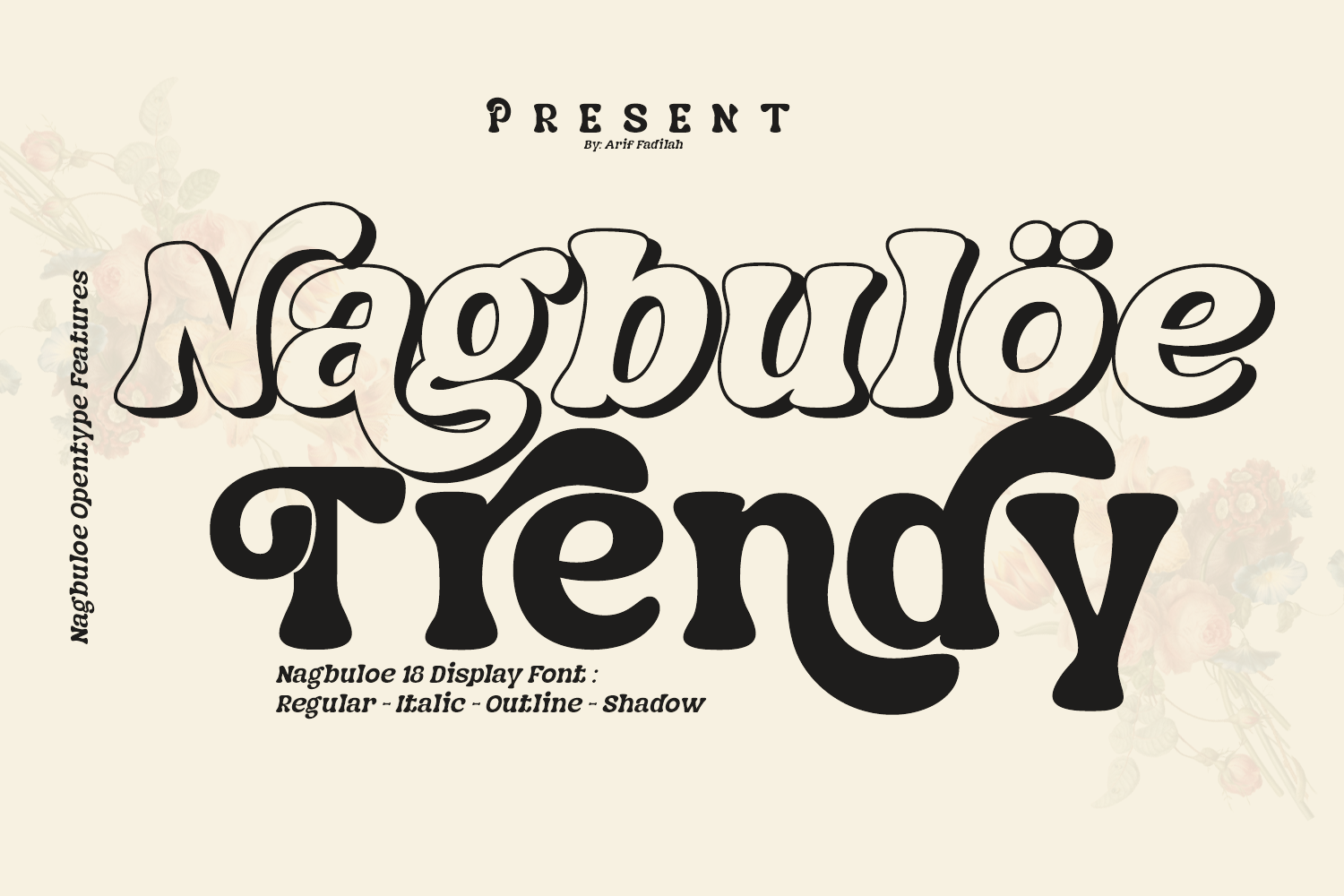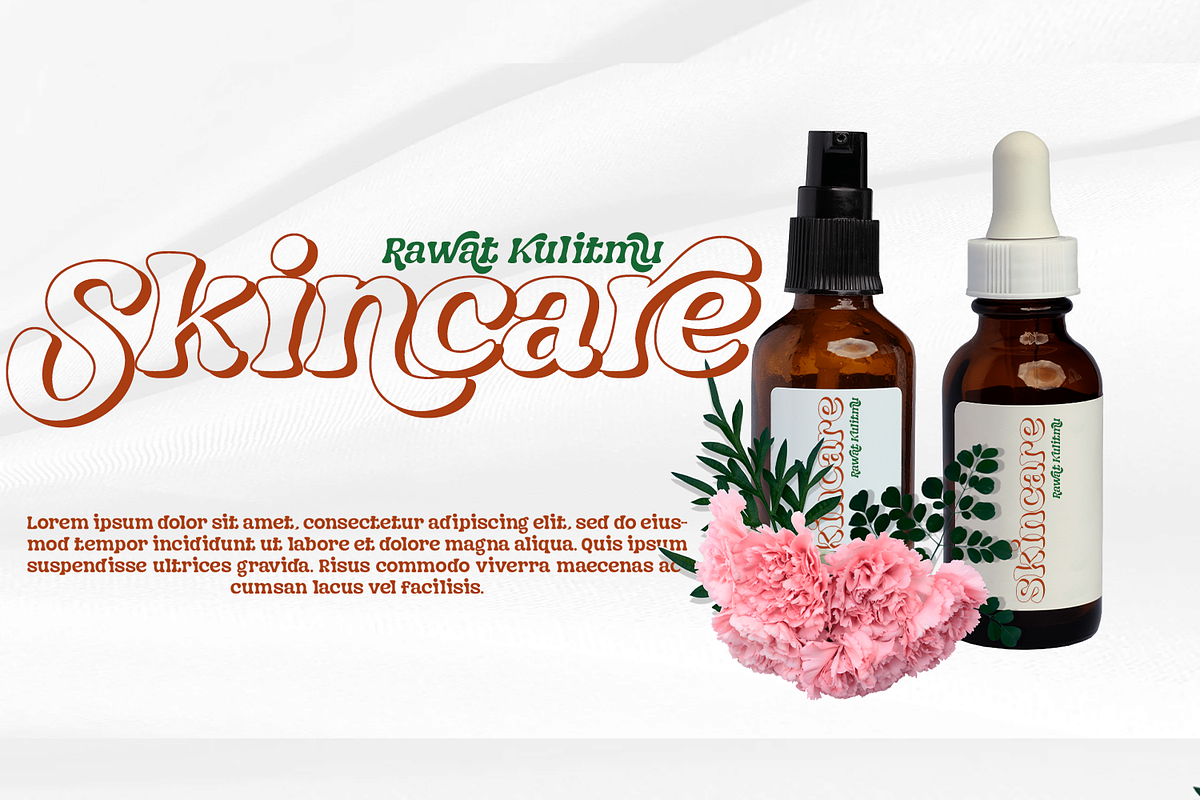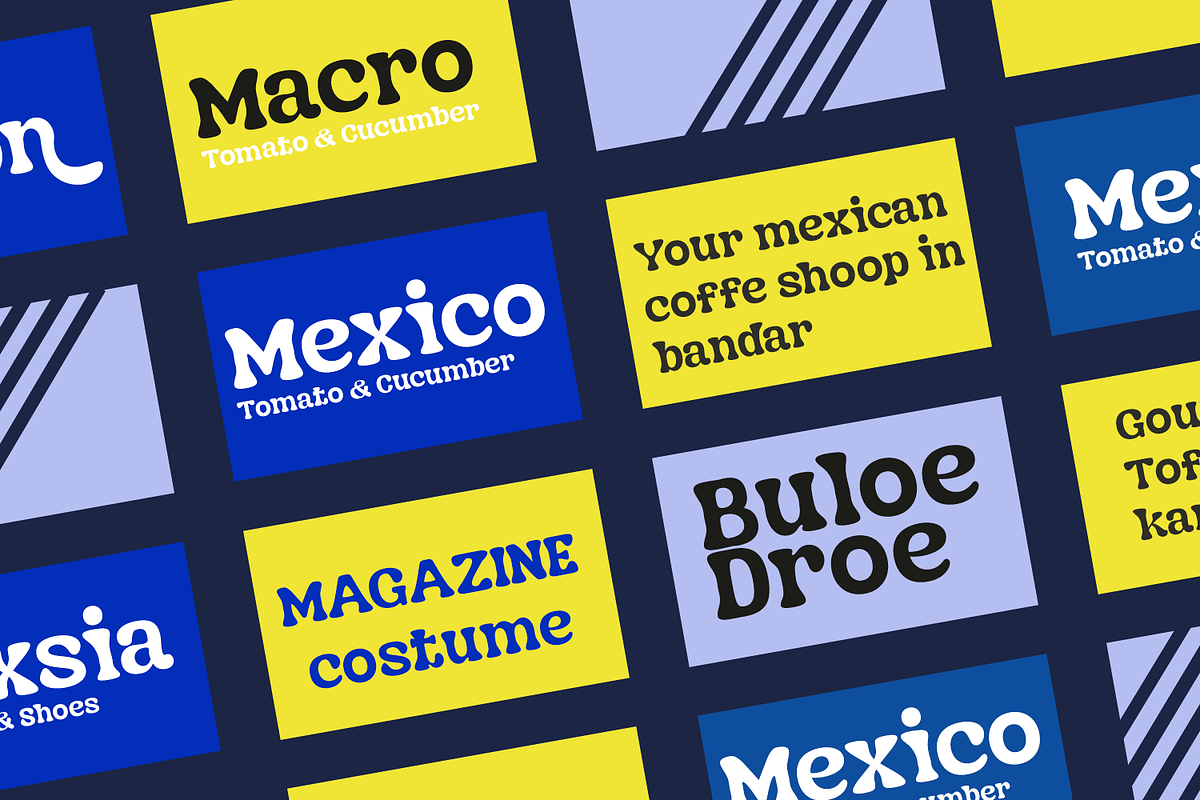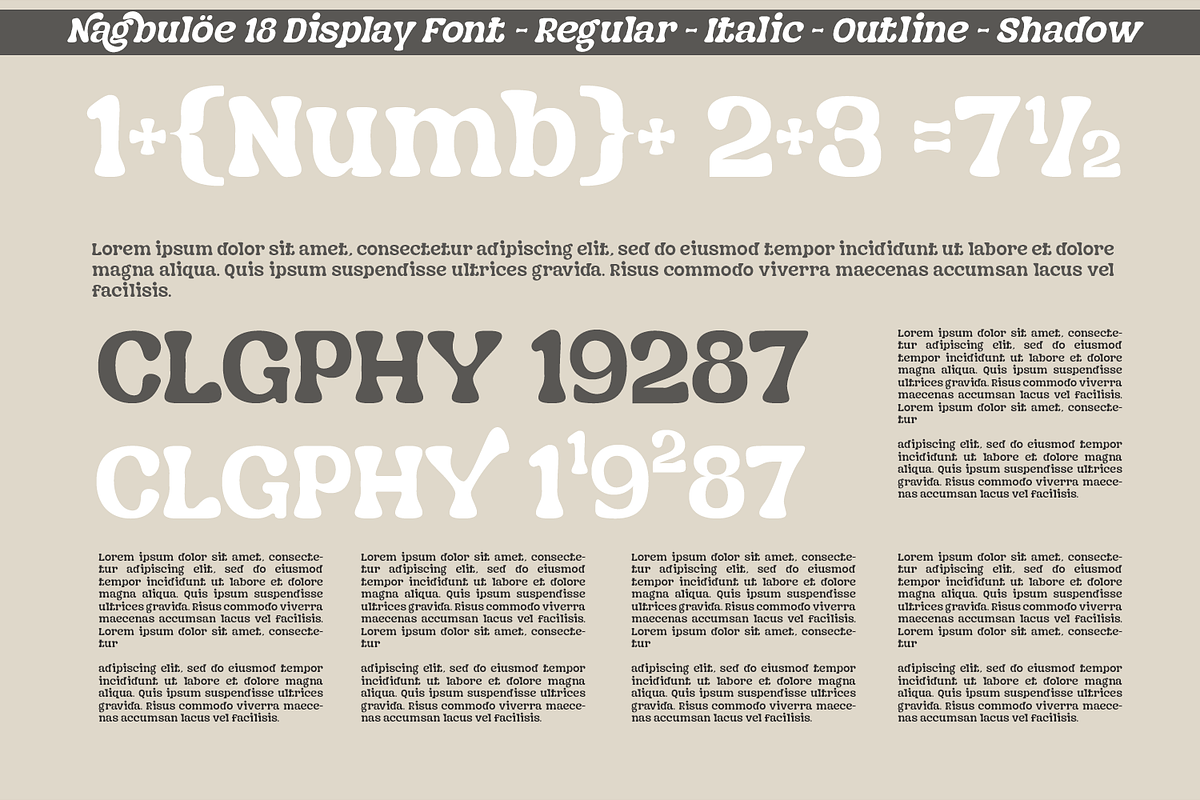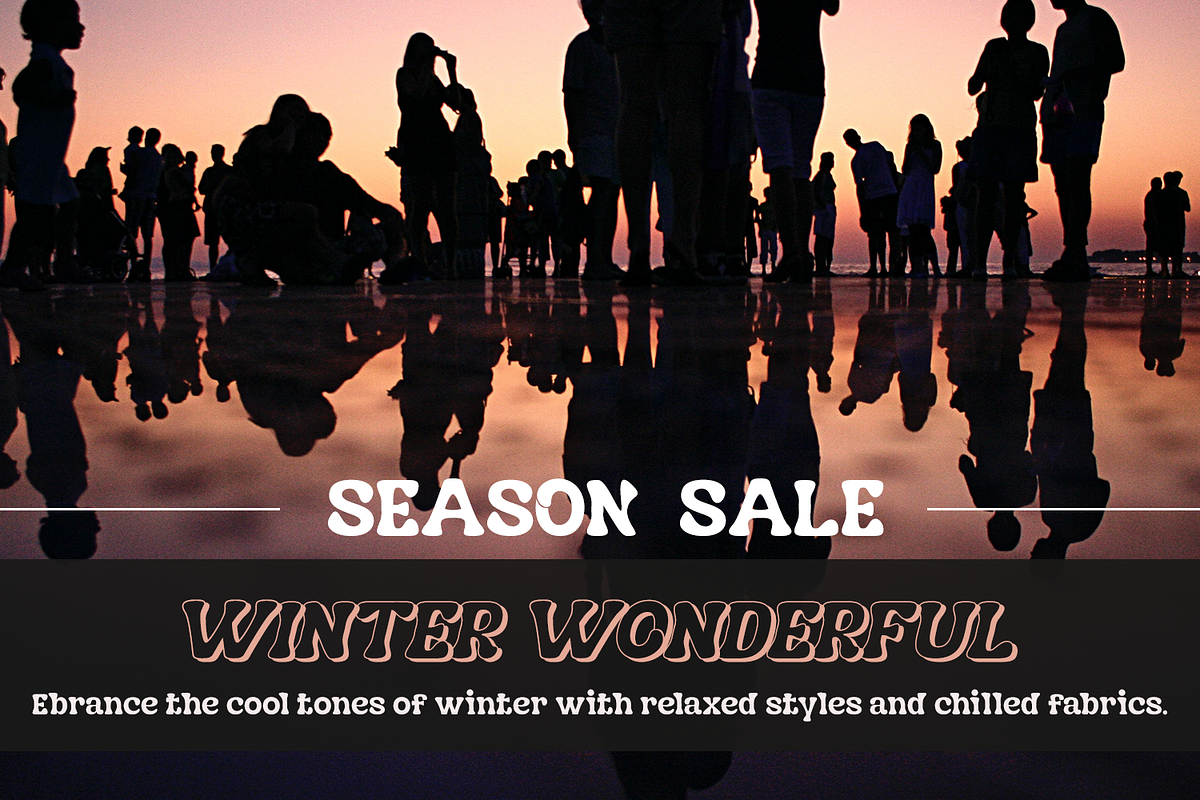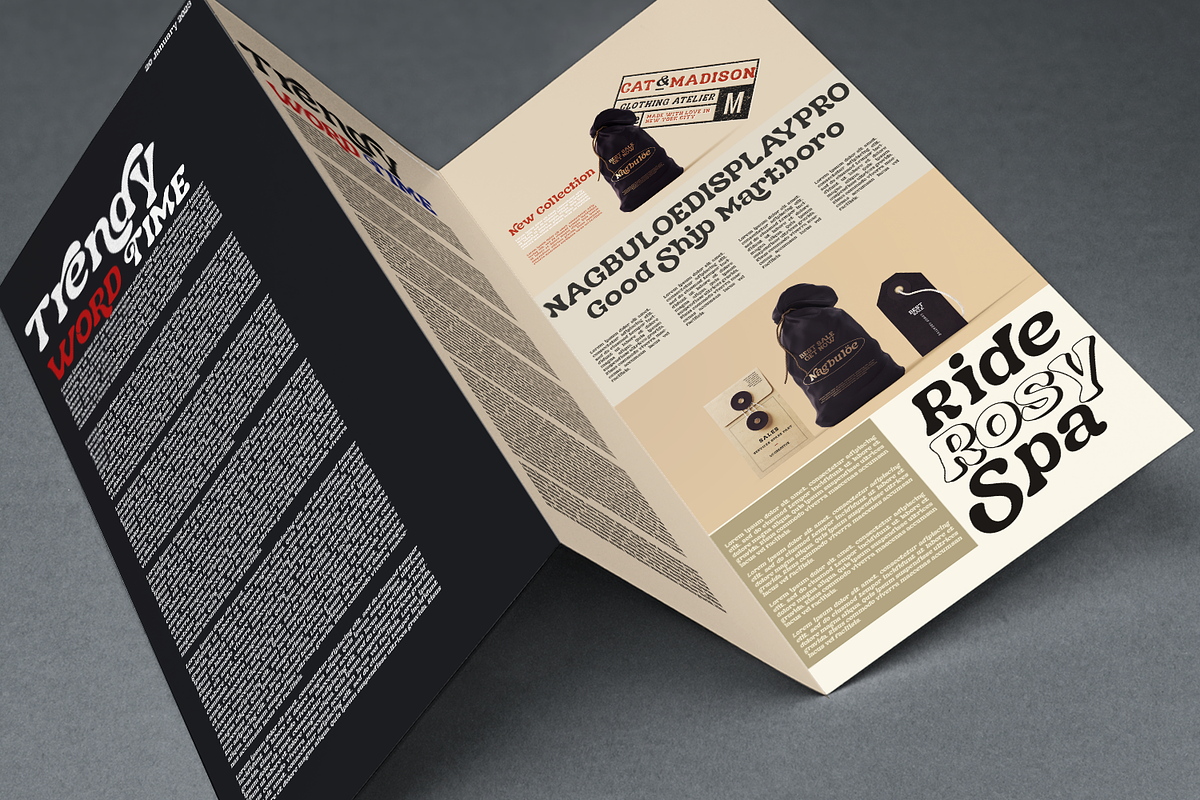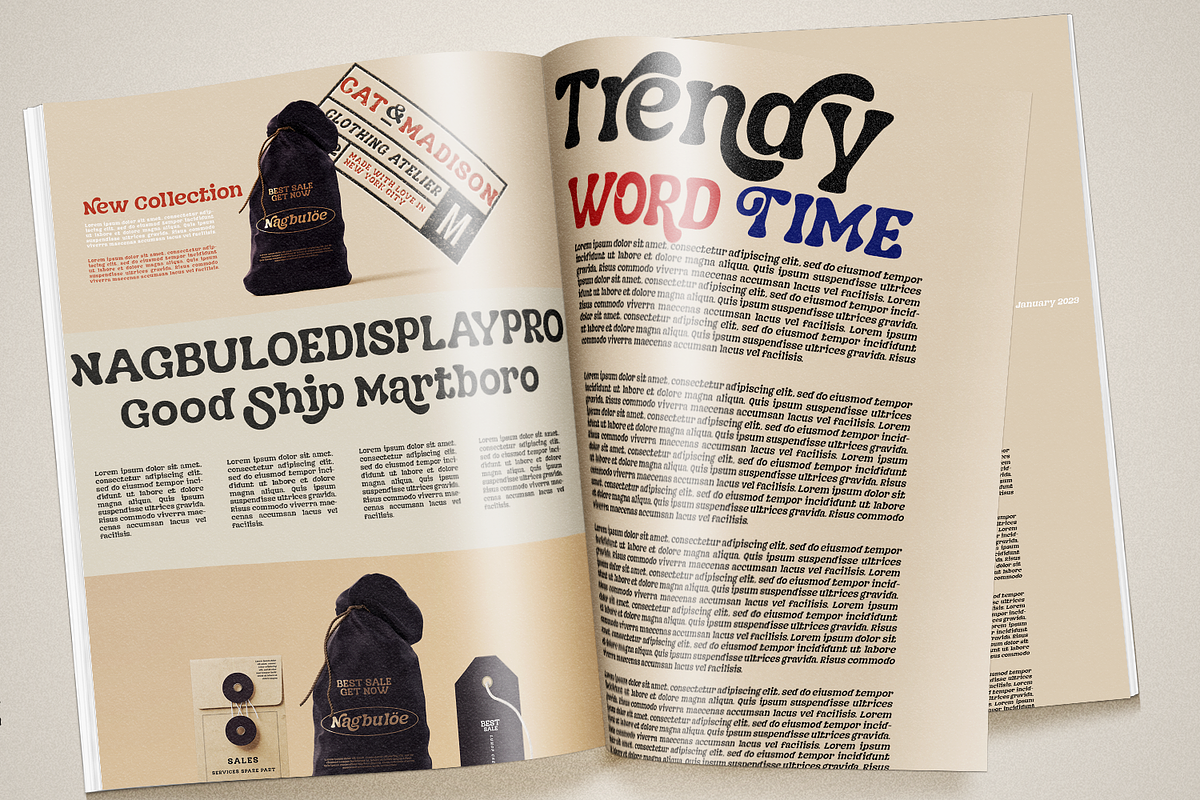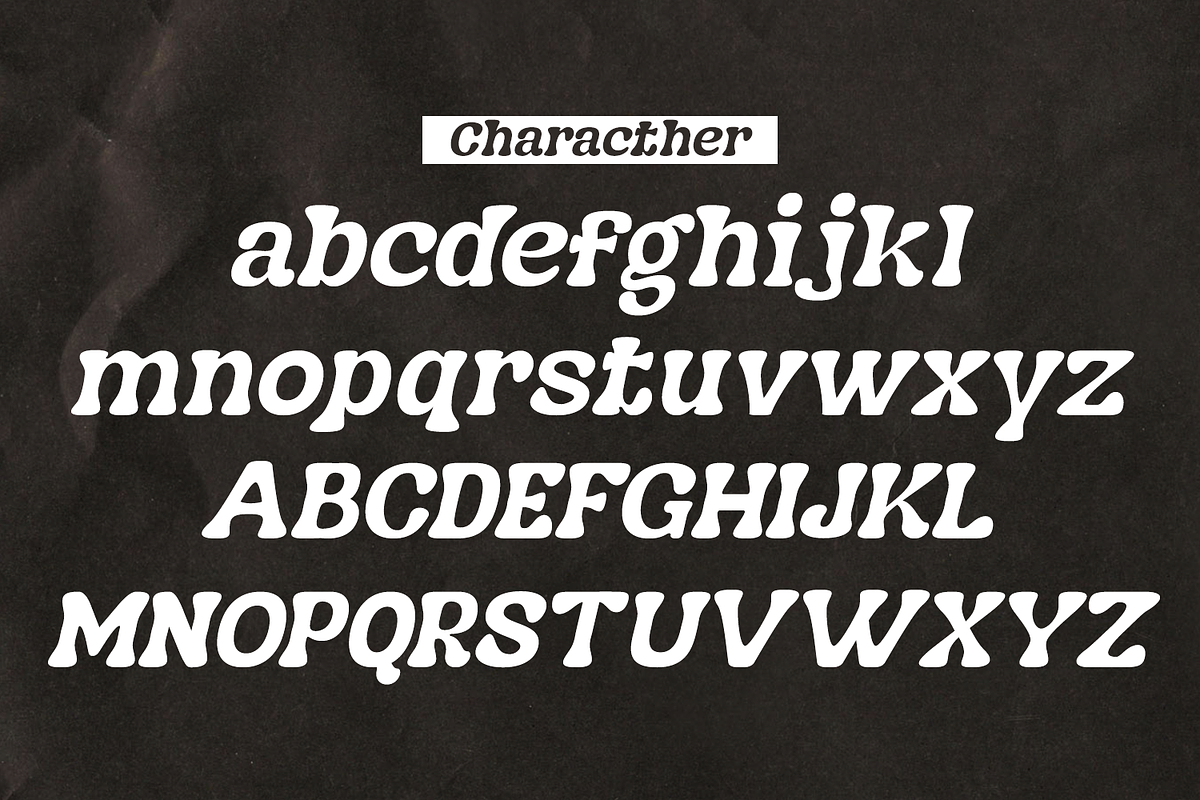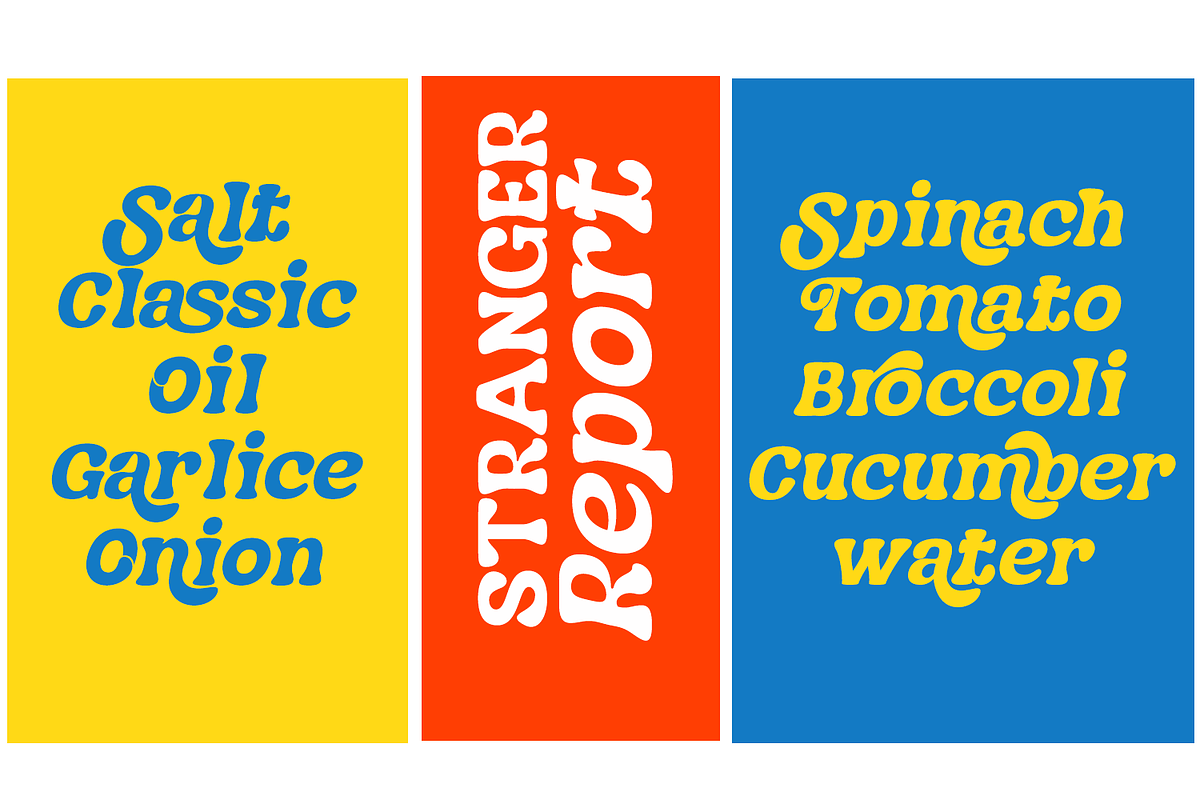
Nagbuloe | Display Font
Nagbuloe is a offers beautiful typographic harmony for a diversity of design projects, including logos & branding, social media posts, and others.So Nagbuloe come with 4 style Regular,Italic,Outline and Shadow.
Nagbuloe Come with Opentype feature with a lot of alternates, its help you to make great lettering. Nagbuloe is also support multi language.